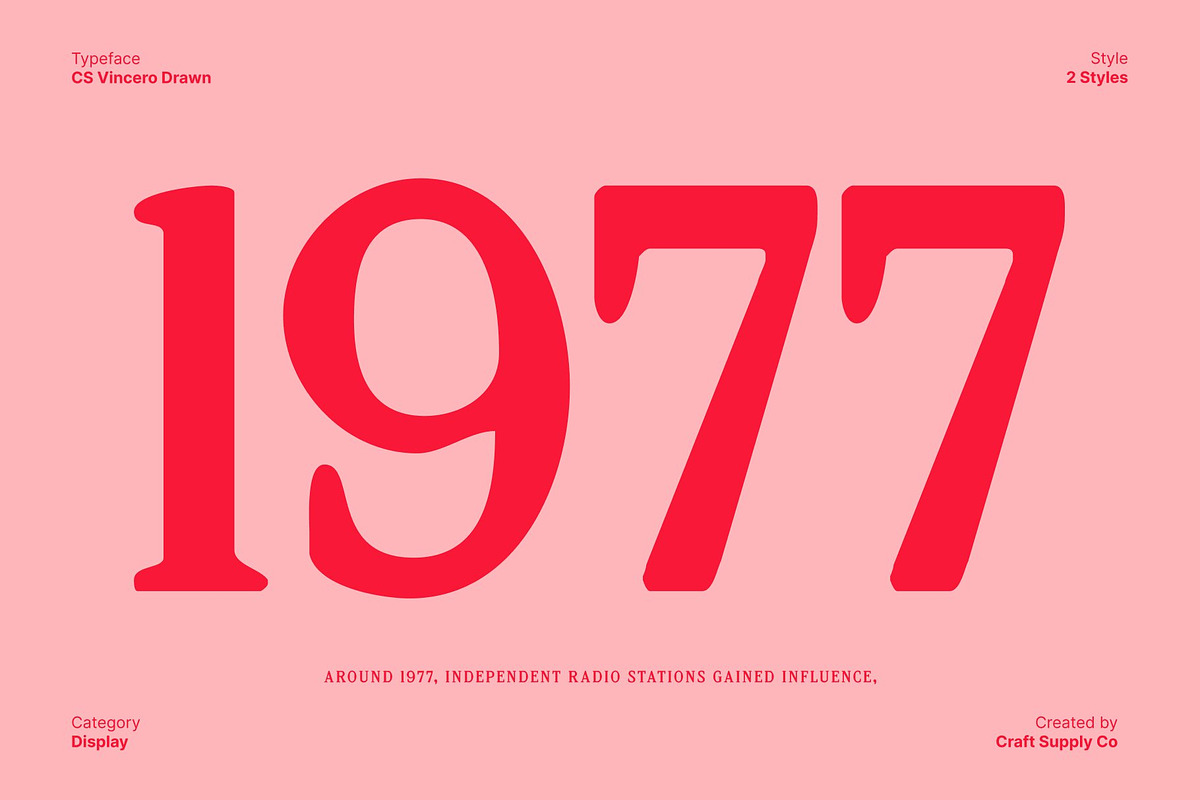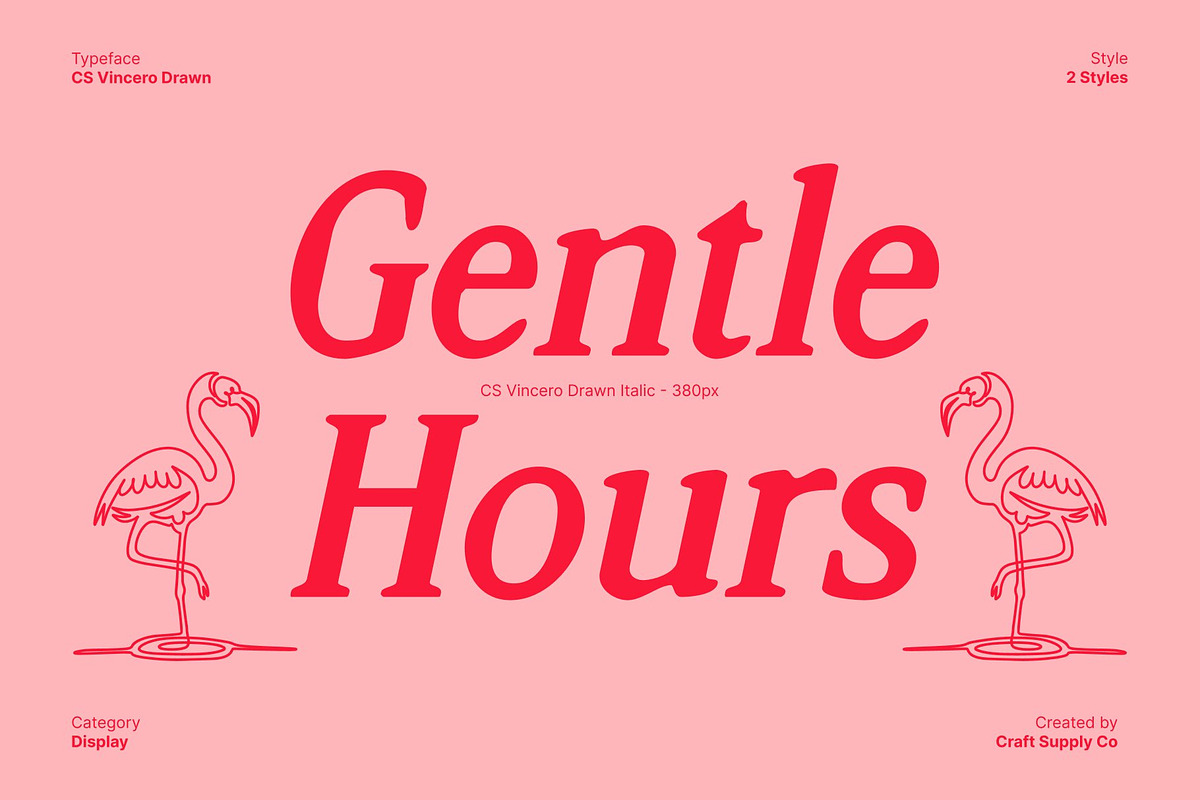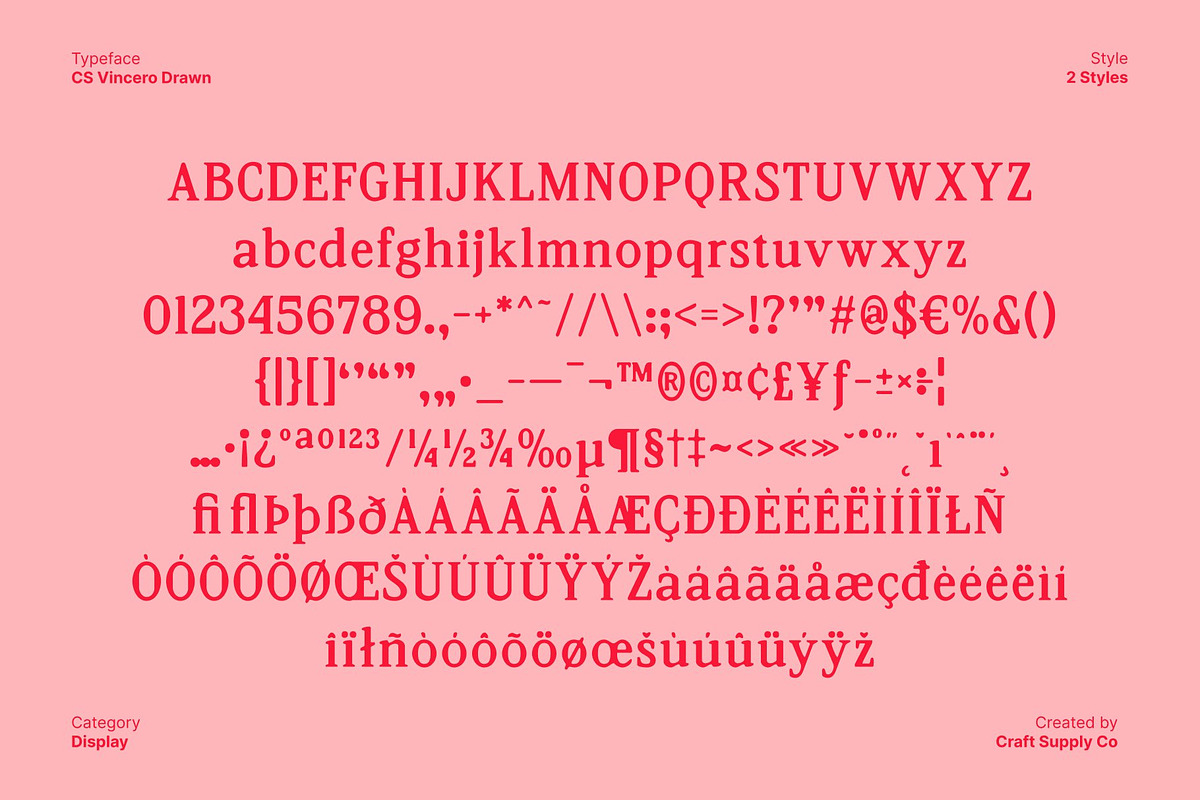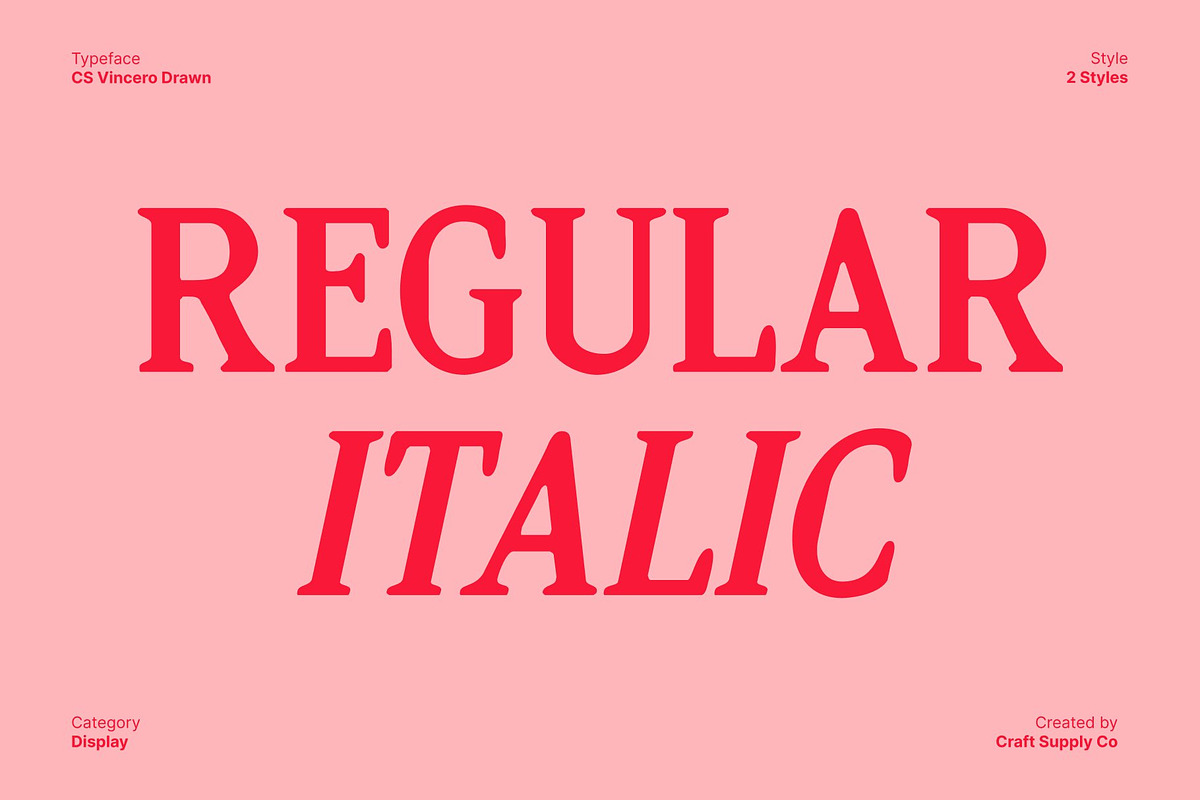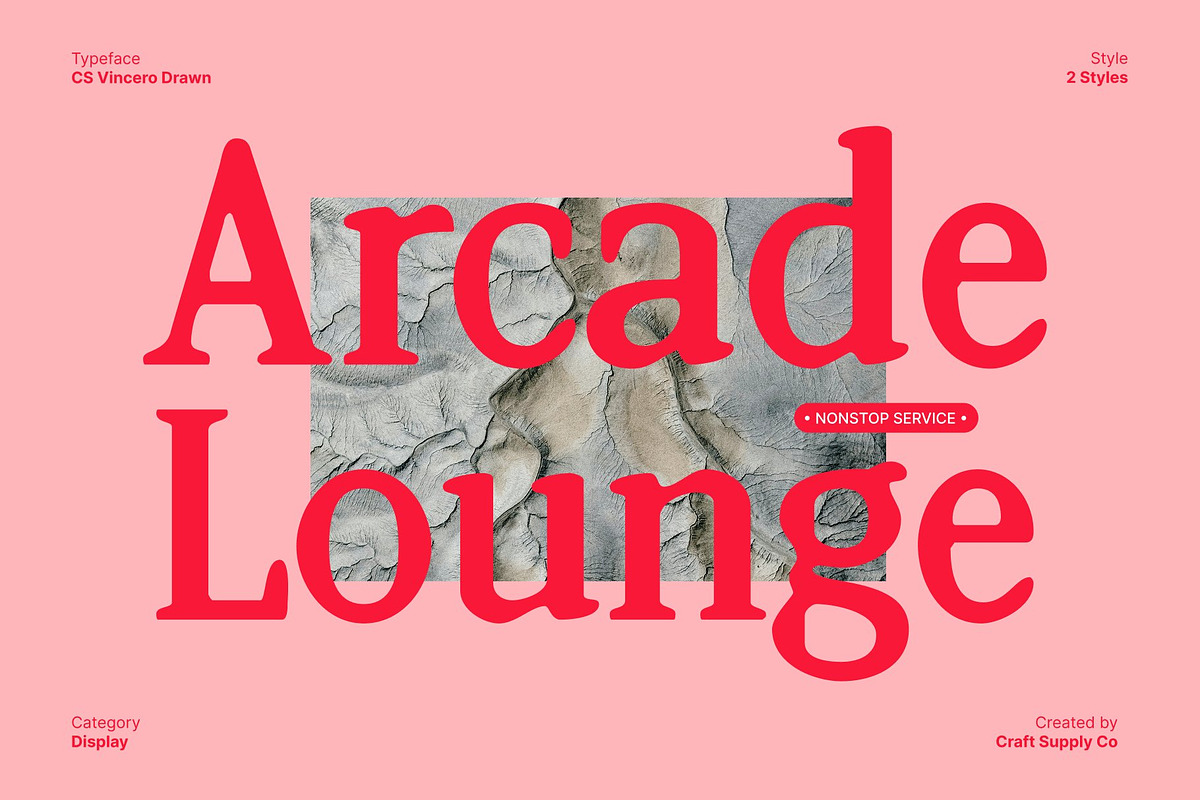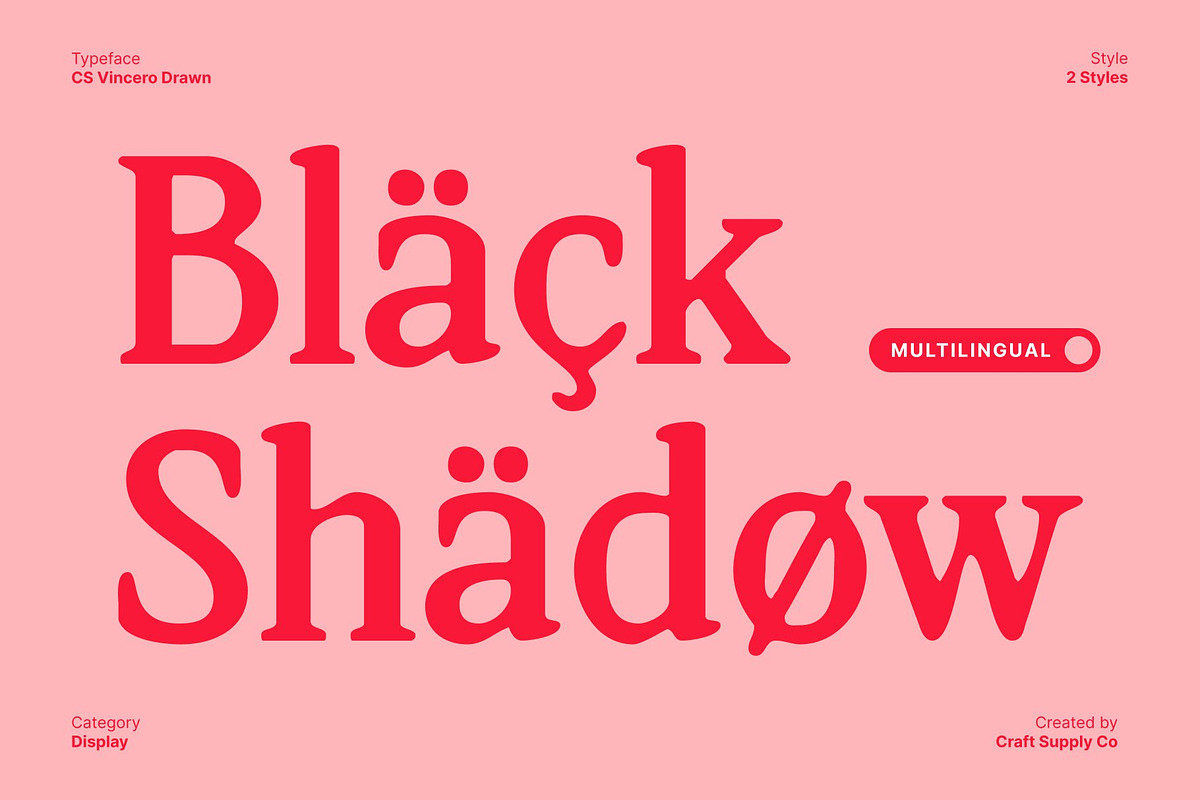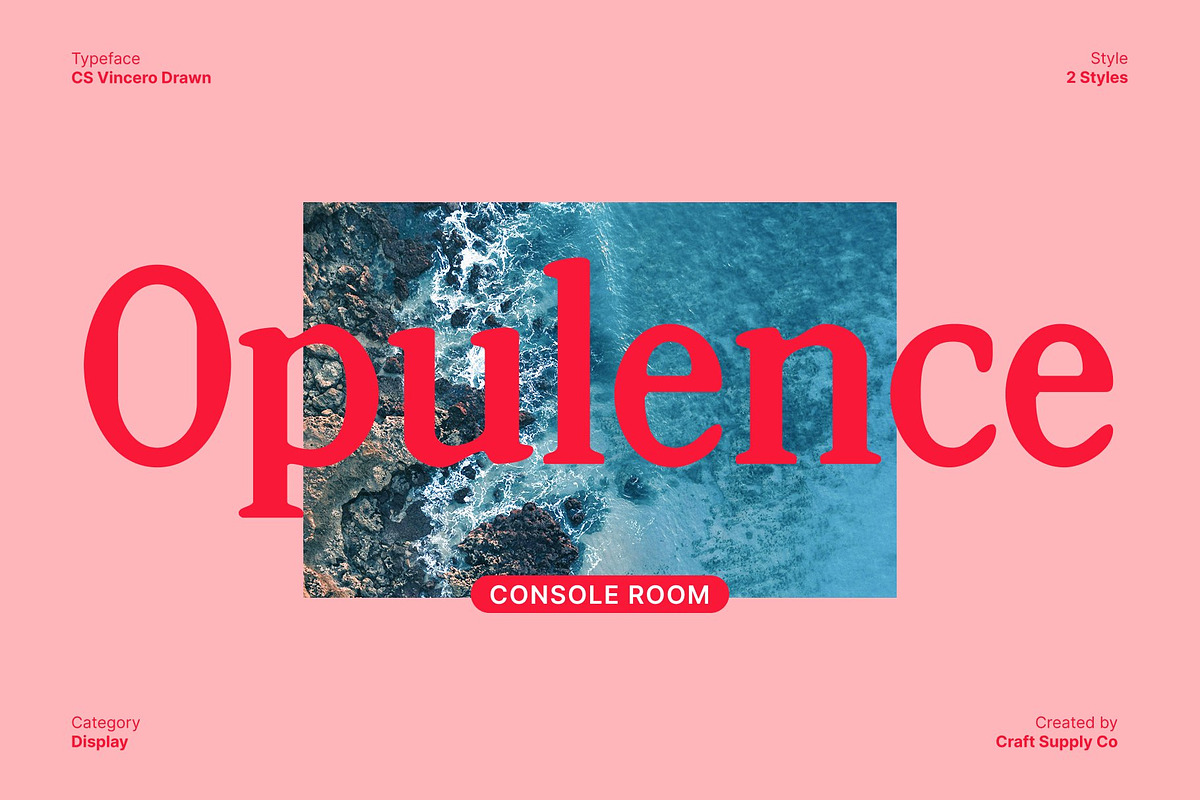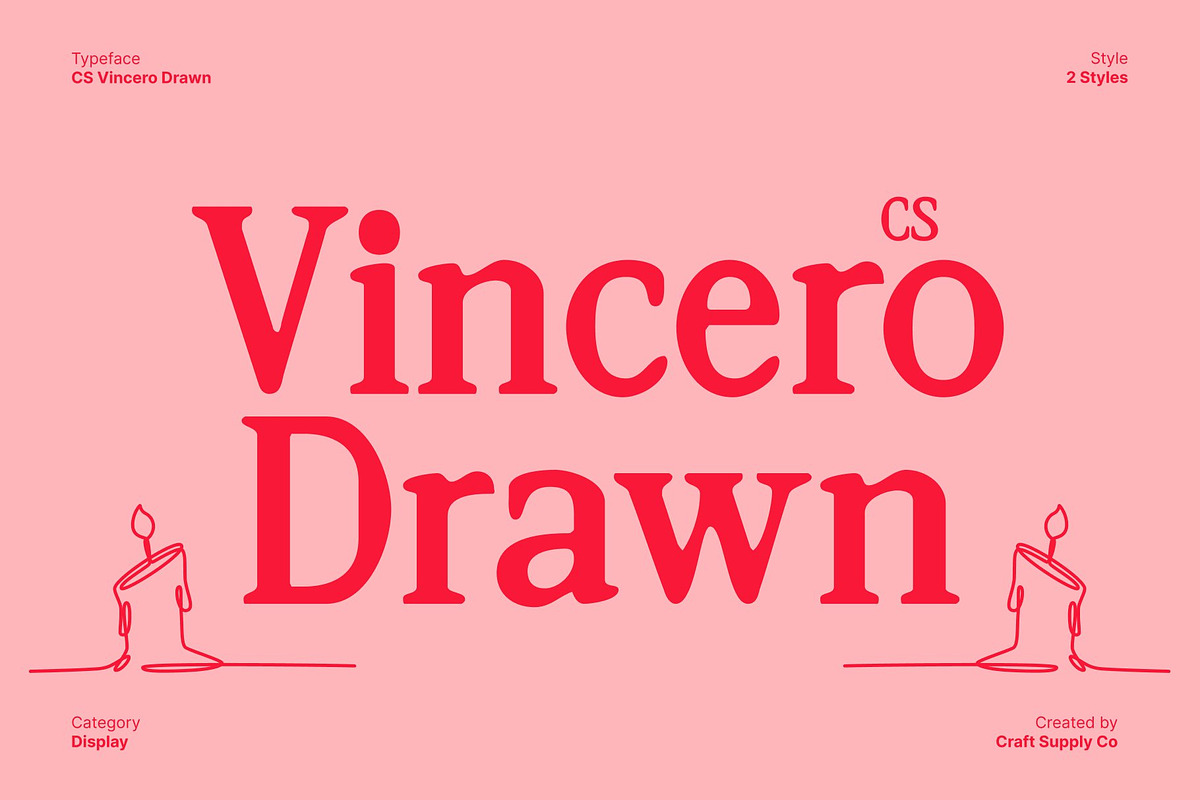
CS Vincero Drawn
CS Vincero Drawn – Contemporary Serif Font with Artistic Character
Slim, Clean, and Professional Design This is a contemporary serif font that blends slim, clean lines with a timeless serif foundation. Its structure feels modern and composed, delivering a professional appearance that is clear, confident, and visually balanced. The refined letterforms make it suitable for designers who value precision while still seeking a distinctive typographic voice.
Modern Sophistication with Hand-Drawn Texture While rooted in classic serif principles, this font is enhanced by a subtle drawn effect that introduces an artistic, handcrafted texture. This added detail softens the clean construction and gives the font a unique character, creating a balance between modern sophistication and expressive individuality. The result feels polished yet human, structured yet visually engaging.
Ideal for Premium and Editorial Design This is crafted for premium applications where style and credibility matter. It performs beautifully in editorial layouts, corporate branding, luxury packaging, fashion books, and high-end promotional materials. The combination of contemporary form and artistic texture helps designs stand out without overpowering the message.
Neat, Serious, and Versatile Appearance With its neat proportions and strong readability, communicates professionalism and confidence across both print and digital media. It delivers a serious tone without feeling rigid, making it ideal for finance, legal, media, fashion, and lifestyle brands that want a modern, refined, and slightly artistic impression.
- CS Vincero Drawn Regular
- CS Vincero Drawn Italic